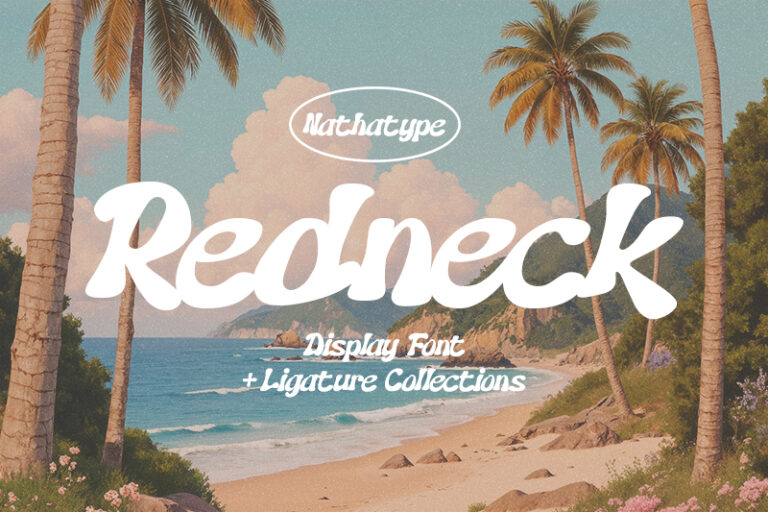
Redneck is a powerful and expressive display font designed to make a strong visual statement. The thick weight of Redneck ensures excellent visibility. Its rounded shapes soften the overall appearance, giving the font a friendly and approachable vibe while still maintaining its strong presence. This balance between bold structure and smooth curves makes Redneck versatile for both playful and rugged design themes. In addition, enjoy the features here.
Redneck fits in logos, quotes, branding, posters, and many more designs. Find out more ways to use this font by taking a look at the font preview.